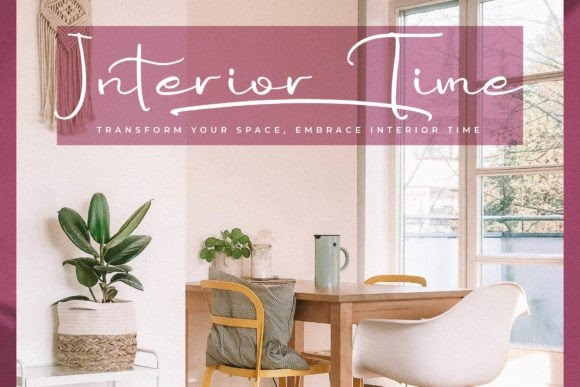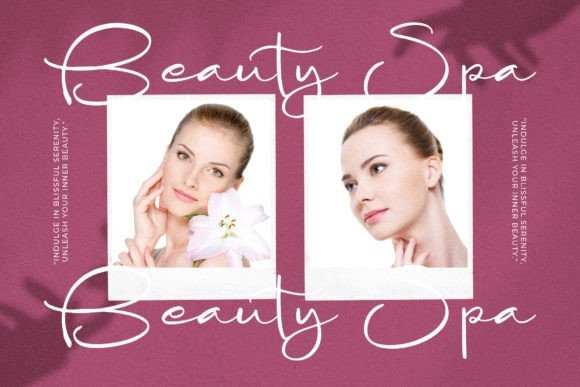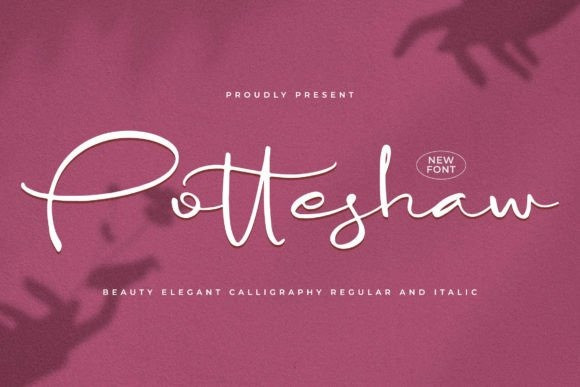
Potteshaw Font
Potteshaw Font – Beauty Elegant Calligraphy suitable for any projects such as logos, branding projects, homeware designs, product packaging, mugs, quotes, posters, shopping bags, t-shirts, book covers, name cards, invitation cards, greeting cards, labels, photography, watermark, special events, and all your other lovely projects that need a beautiful script taste.